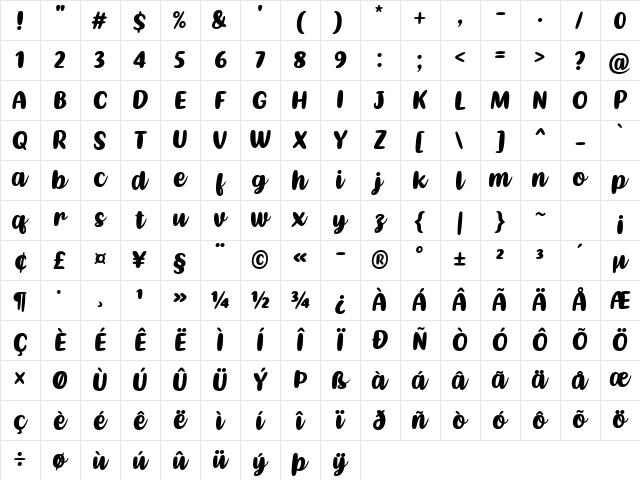
Kathen Regular Free Font
Kathen Regular
Foundry: 7NTypes
Designer: Situjuh Nazara
Design Context for Kathen
Kathen is a composed and adaptable typeface that performs quietly and consistently across a wide range of design contexts.